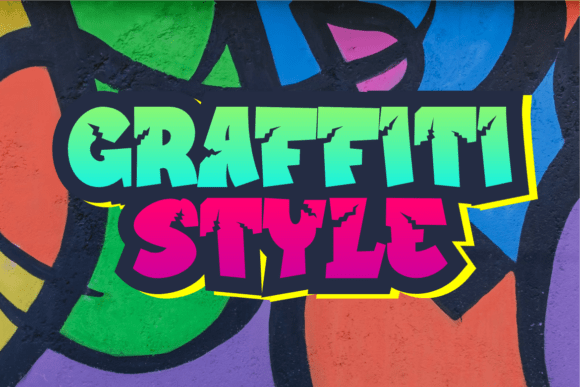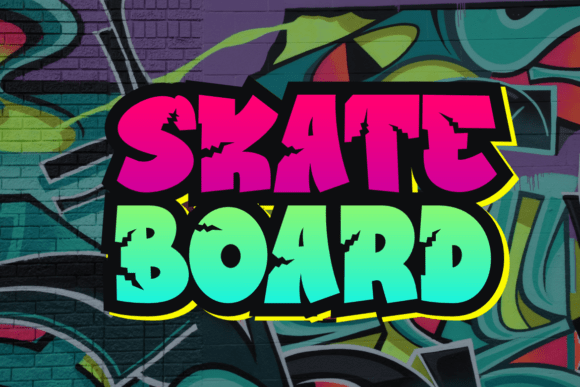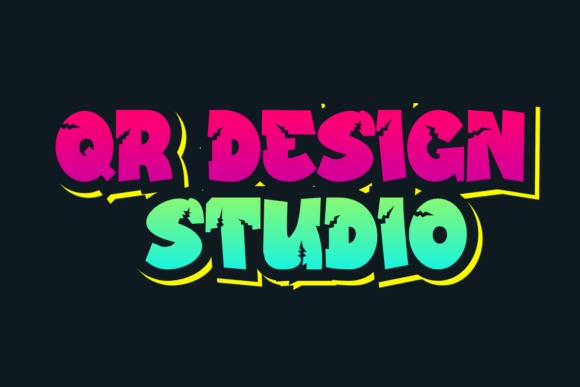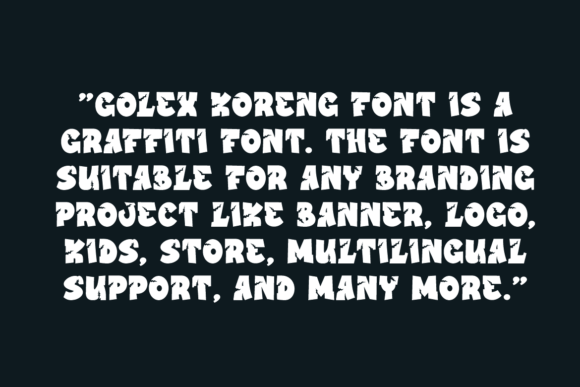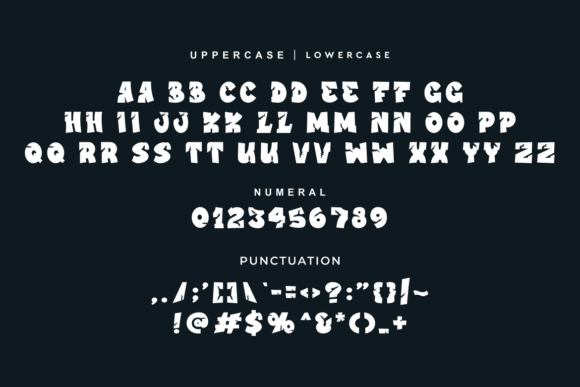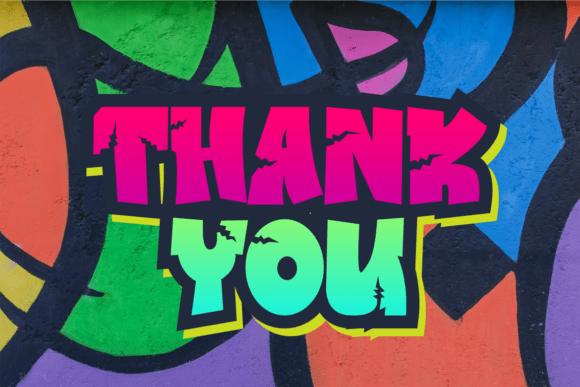
Introduction to Golex Koreng Font
Golex Koreng is an explosive graffiti and paint font loaded with energy, contrast, and urban flair.
With bold, jagged characters and paint-splatter effects, this font is perfect for underground designs, music posters, youth brands, and digital artwork that demands attention Its dynamic personality speaks loud and proud — just like graffiti should.
Key Features of Golex Koreng Font
Why Choose Golex Koreng Font?
Golex Koreng Font offers exceptional quality and versatility, making it a valuable addition to your design toolkit. Whether you’re creating for personal projects or commercial use, Golex Koreng Font delivers professional results.